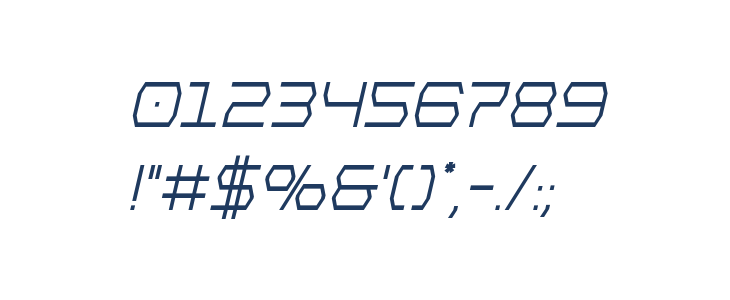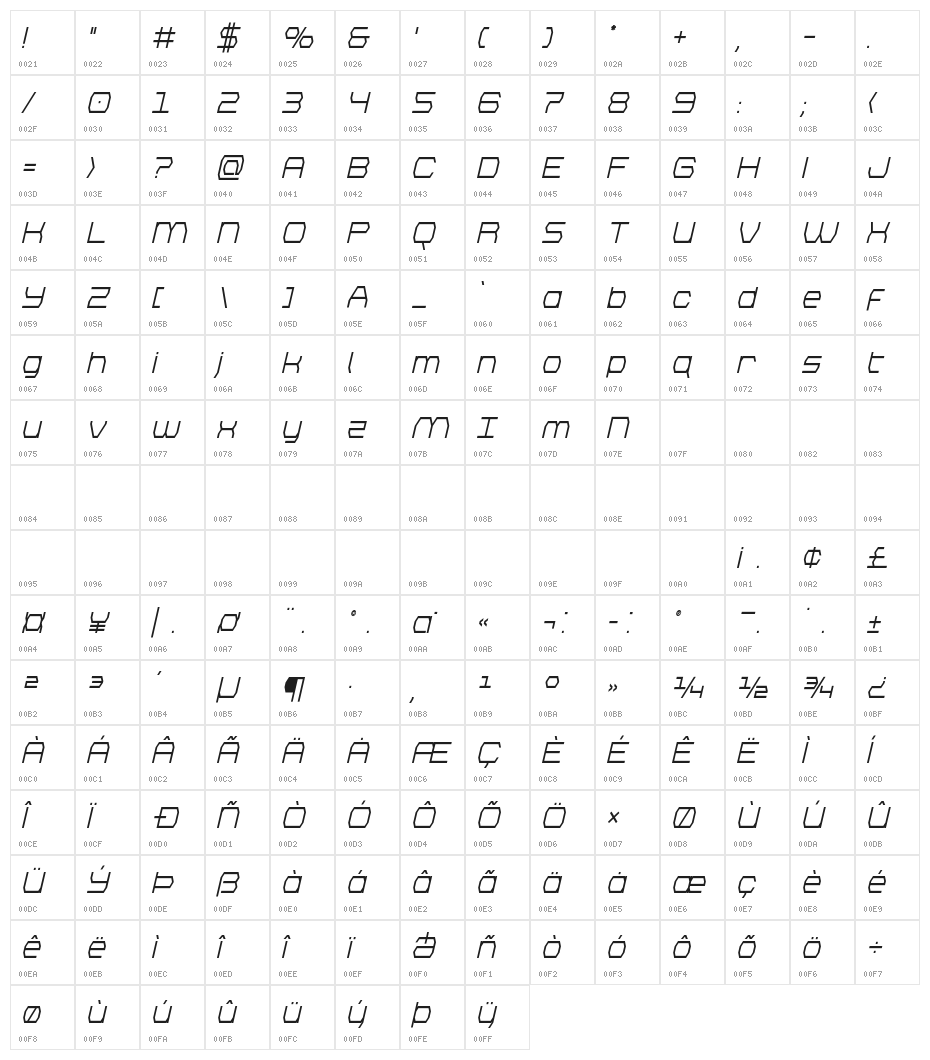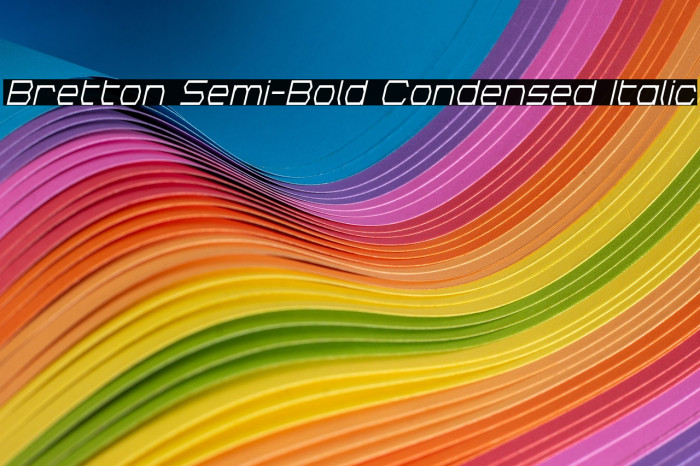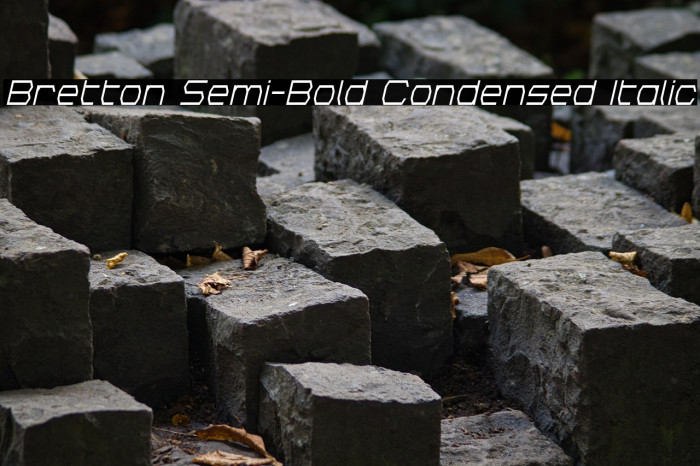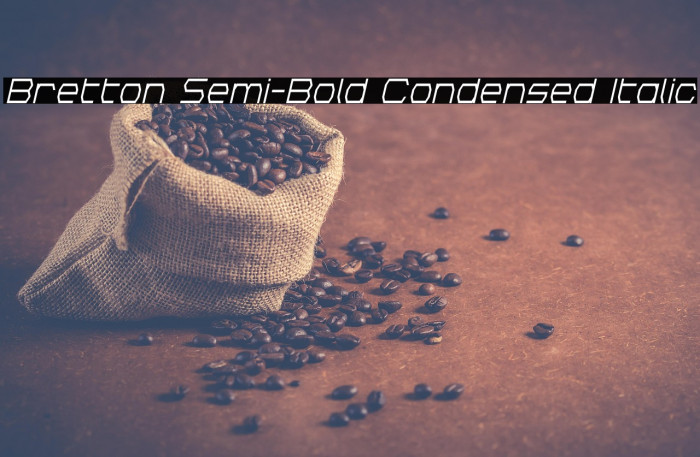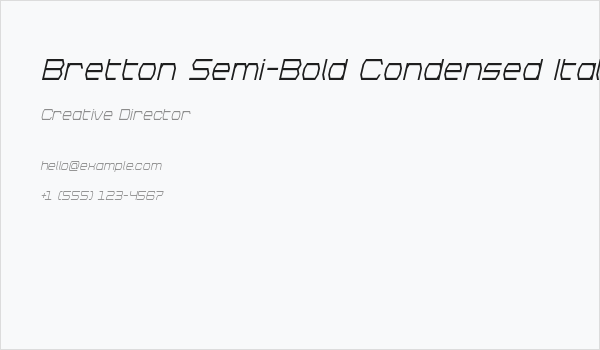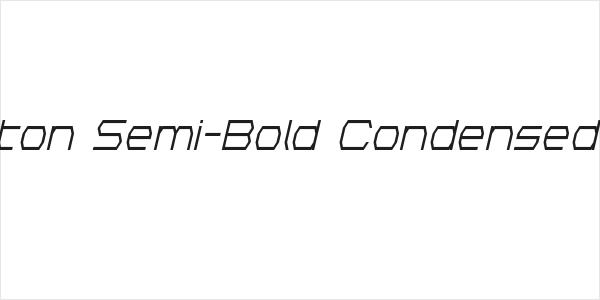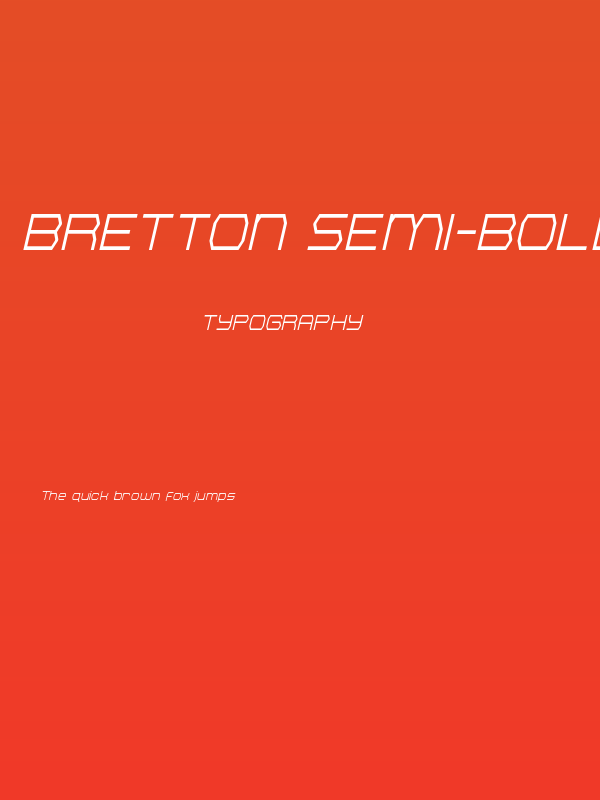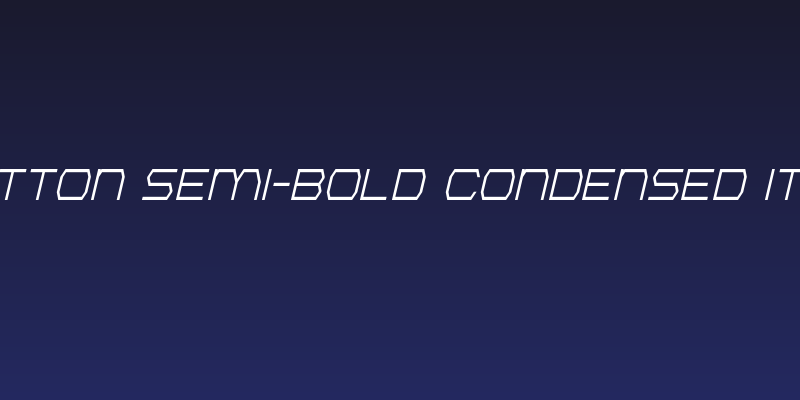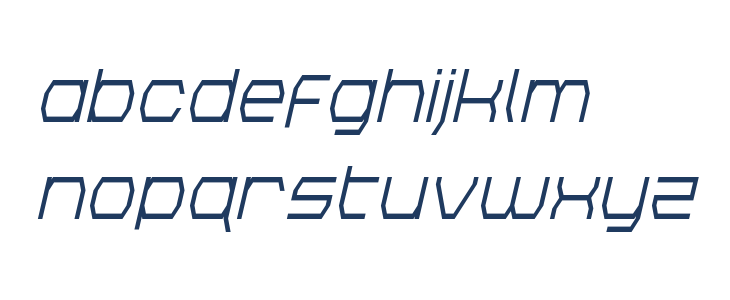
Bretton Semi-Bold Condensed Italic Font
Bretton Semi-Bold Condensed Italic Description
This font features a modern, geometric design with a semi-bold weight and condensed width. The italic style adds a dynamic, forward-leaning appearance, enhancing its contemporary feel. The characters are constructed with clean, angular lines, giving it a technical and precise look. The uppercase and lowercase letters maintain a consistent style, with sharp edges and a uniform stroke width. Numbers and special characters follow the same design principles, ensuring a cohesive appearance across all glyphs. The overall aesthetic is sleek and futuristic, making it suitable for projects that require a modern and professional touch.
Use CaseHeadlines, Logos, Digital Interfaces
Proposed ProjectsIdeal for technology branding, modern advertisements, futuristic designs, and digital interfaces.